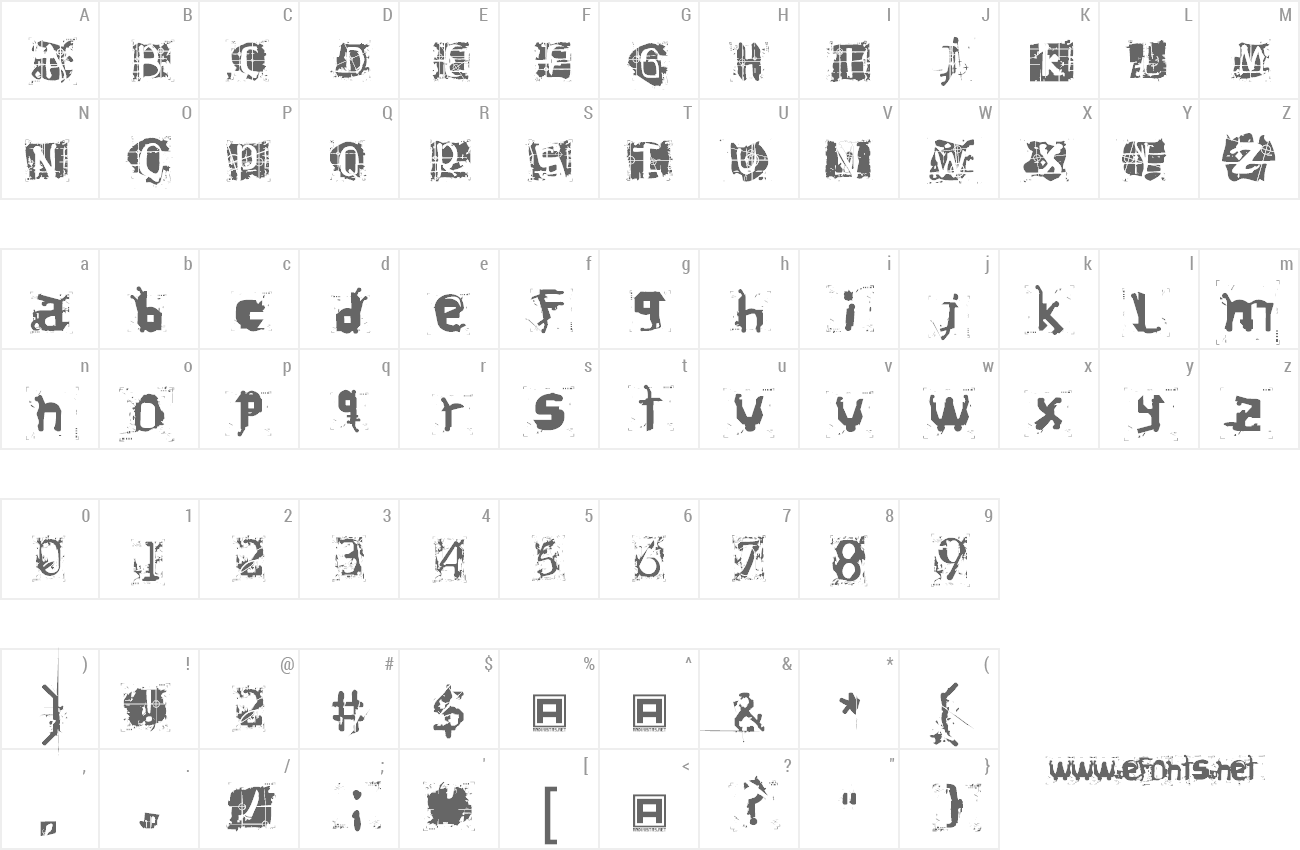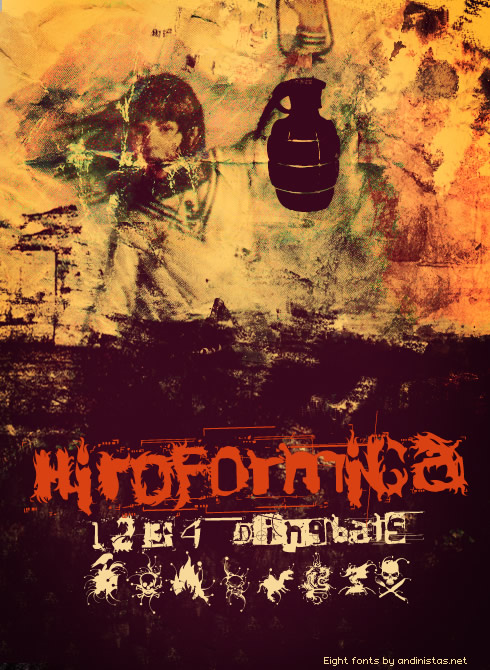
Preview and download Hiroformica Font. Created by Carlos Fabián Camargo Guerrero in Fancy Destroy styles with Free for personal use license.
Hiroformica Is one of andinistas.net first free fonts in these last six years. Its damage character confirms concepts like destruction. Please read the licence file attached to the font. /// Available for purchase at Myfonts: http://www.myfonts.com/fonts/andinistas/hiroformica Hiroformica is a typographic family composed by eight different fonts configured for integrated combat. When mixing, you will emphasize the big impact of its damaged spirit providing originality and unique identity for your design work. Hiroformica 1, 2, 3 and 4 show a rip range and fires thought from telescopic sights and shooting targets. Hiroformica Dingbats 1, 2, 3 and 4 include 104 illustrations and Hiroformica 1, 2, 3 y 4 include the complete character set with lower and upper case letters, numbers, accents, diacritics, puntuation and monetary symbols. All of the fonts included in this family are available in the Open Type format and they are Mac and PC compatible. |